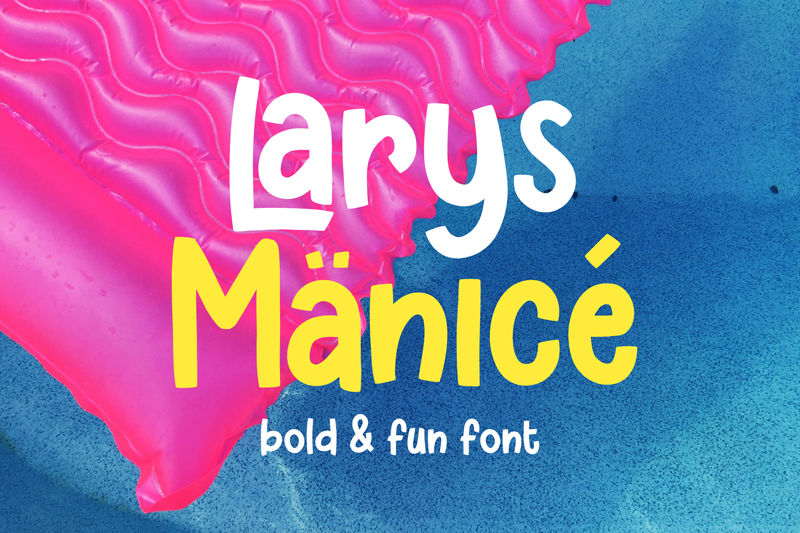
Larys Manice is bold and fun sans serif font. It brings joyful and happiness to all of us. Inspired by handlettering with marker pen with bold and strong style. This font is ideal for display, text, print, branding, signage, with a set of optimal characters for your design in any layout. Please note : This demo font is ONLY FOR PERSONAL USE For commercial purpose and full version , get it here : https://crmrkt.com/xlNPx9 or contact me via message |